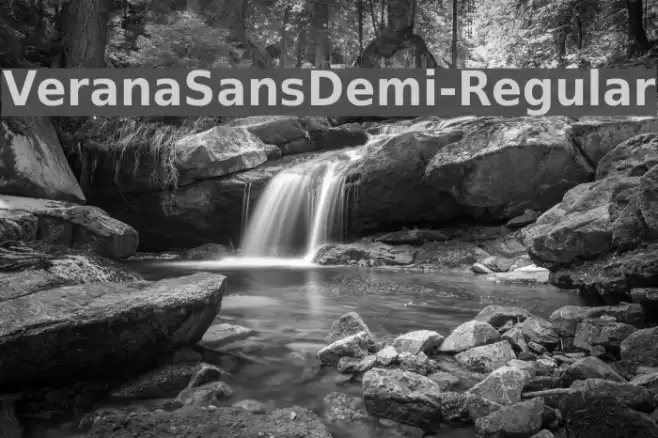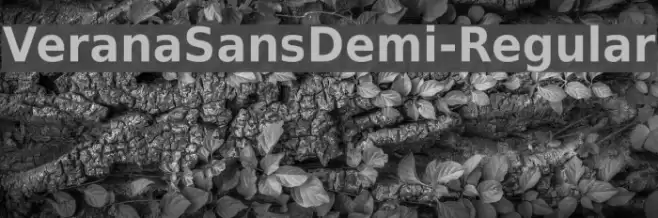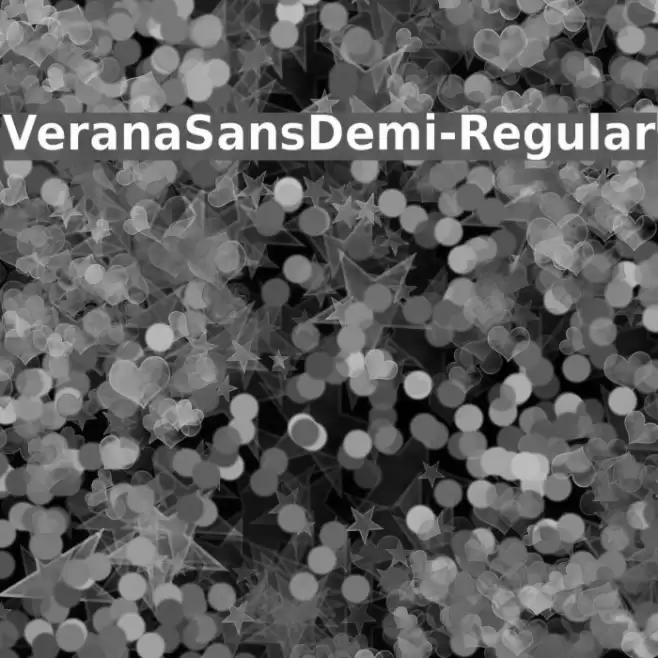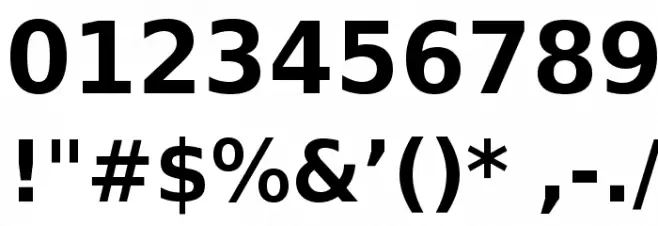
VeranaSansDemi-Regular Font
VeranaSansDemi-Regular Description
This typeface features a clean and modern sans-serif design, characterized by its bold and robust letterforms. The uppercase letters are uniform in height, providing a strong and cohesive appearance. The lowercase letters maintain a consistent x-height, ensuring readability and balance. Numbers are clear and distinct, making them suitable for various applications. The special characters are well-defined, adding versatility to the font. Overall, the font's simplicity and clarity make it an excellent choice for both digital and print media.
A bold, modern sans-serif font with clean, robust letterforms from Uncategorized fonts.
- Proposed Projects: Ideal for branding, advertising, web design, and editorial projects.
- Use Case: Headlines, Body text, Logos